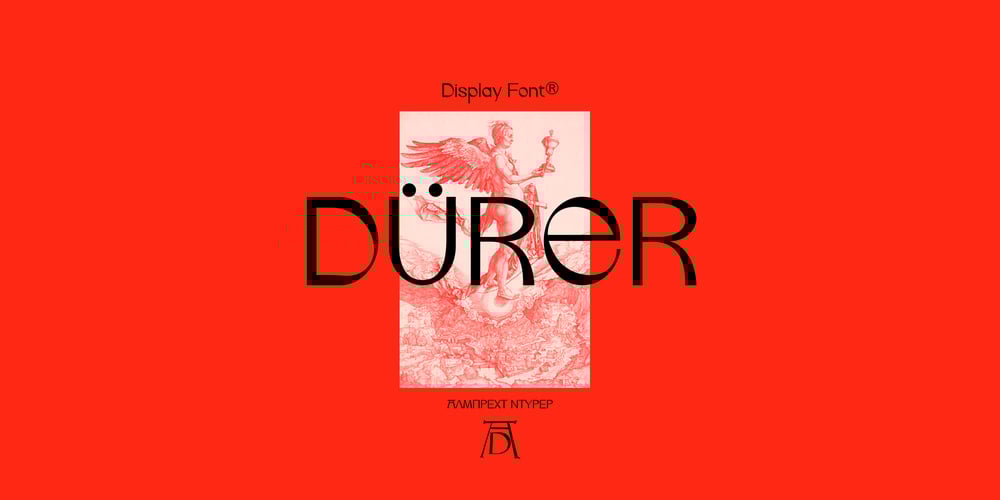
Durer Display Font Family was designed by Thodoris Nikolopoulos and published by iframe. Durer Display contains 1 styles and family package options. Durer is a modern font, its soft curves and refined details create a sense of elegance.Inspired by the work of Albrecht Dürer (21 May 1471 – 6 April 1528), who was a German painter, printmaker, and theorist of the German Renaissance. Born in Nuremberg, Dürer established his reputation and influence across Europe in his twenties due to his high-quality woodcut prints. 551 Glyphs Upper / lower case, numbers, punctuation Language support: Latin / Greek Designed by iframe type foundry